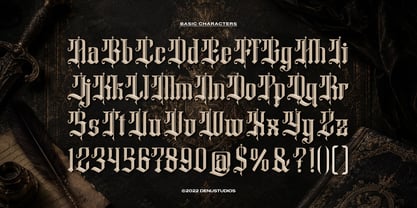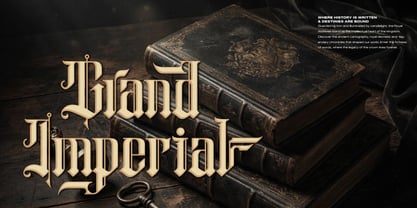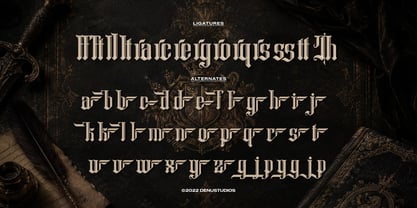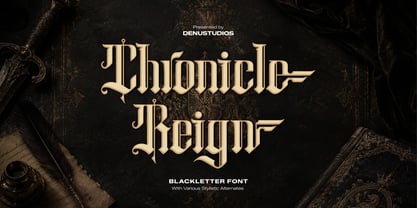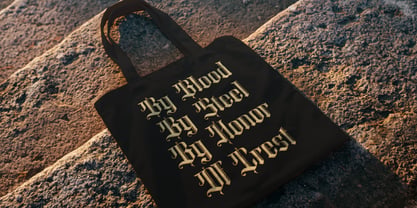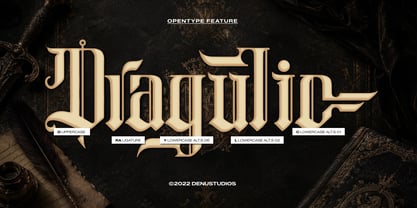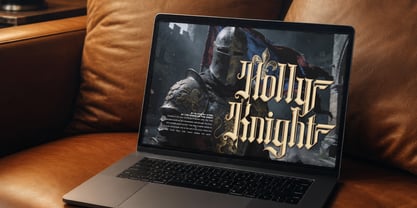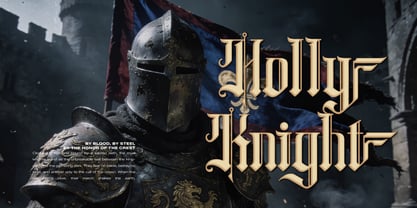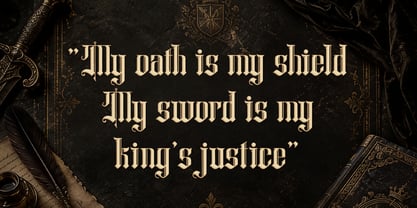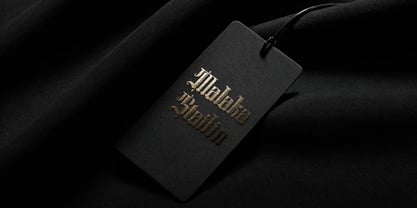
Chronicle Reign
by Denustudio
The Chronicle Reign Font Family was designed by Dede Nugraha and published by Denustudio. Chronicle Reign contains 1 styles. More about this family
Chronicle Reign | Blackletter Font, from Denustudios, suitable for any projects such as: logos, branding projects, homeware designs, product packaging, mugs, quotes, posters, shopping bags, t-shirts, book covers, name card, invitation cards, greeting cards, label, photography, watermark, special events, and all your other lovely projects that need Blackletter a taste.
Designers: Dede Nugraha
Foundry: Denustudio